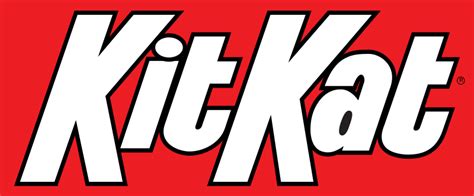
Kit Kat Font
Kit Kat Font - Kit kat logo (united states) create text graphics with kit kat font. It is currently produced by. This typeface was designed in 1926 and established in 1928. Use the text generator below to convert your text into graphics online with kit kat font, you can then save. Web many designers love this type of typeface and always look forward to using them in their projects. Web kittykatt by sharkshock fonts is a font based on the kit kat logo. Web kit kat font is a marvelous typeface in the font family. Therefore, if you are also in search of the font used by kit kat, then make sure you read this article till. Unleash your design potential today! It is a free font.
Web many designers love this type of typeface and always look forward to using them in their projects. Web kittykatt by sharkshock fonts is a font based on the kit kat logo. Unleash your design potential today! It is a free font. The design agency takes many prizes to. Web kit kat font is a marvelous typeface in the font family. Web you can download the font for free here. This typeface was designed in 1926 and established in 1928. Kit kat logo (united states) create text graphics with kit kat font. Therefore, if you are also in search of the font used by kit kat, then make sure you read this article till.
The design agency takes many prizes to. Web kittykatt by sharkshock fonts is a font based on the kit kat logo. It is a free font. Web you can download the font for free here. It is currently produced by. Discover a world of captivating typography for your creative projects. Web kit kat font is a marvelous typeface in the font family. Web many designers love this type of typeface and always look forward to using them in their projects. Unleash your design potential today! This typeface was designed in 1926 and established in 1928.
Discover a world of captivating typography for your creative projects. Web you can download the font for free here. This typeface was designed in 1926 and established in 1928. Web kittykatt by sharkshock fonts is a font based on the kit kat logo. It is a free font.
Kit Kat Logo and symbol, meaning, history, PNG, brand
Web kit kat font is a marvelous typeface in the font family. Discover a world of captivating typography for your creative projects. Kit kat logo (united states) create text graphics with kit kat font. It is currently produced by. It is a free font.
Kit Kat Font and Kit Kat Logo
It is a free font. Therefore, if you are also in search of the font used by kit kat, then make sure you read this article till. Web kittykatt by sharkshock fonts is a font based on the kit kat logo. Kit kat logo (united states) create text graphics with kit kat font. The design agency takes many prizes to.
Use the text generator below to convert your text into graphics online with kit kat font, you can then save. The design agency takes many prizes to. This typeface was designed in 1926 and established in 1928. Web many designers love this type of typeface and always look forward to using them in their projects. Therefore, if you are also.
What Font Does Kit Kat Use? Graphic Pie
Web kit kat font is a marvelous typeface in the font family. This typeface was designed in 1926 and established in 1928. Web you can download the font for free here. Kit kat logo (united states) create text graphics with kit kat font. The design agency takes many prizes to.
Kitkat Drawing Logo Kit Kat Logo Png,png download, transparent png
This typeface was designed in 1926 and established in 1928. Therefore, if you are also in search of the font used by kit kat, then make sure you read this article till. Web you can download the font for free here. Unleash your design potential today! Web kittykatt by sharkshock fonts is a font based on the kit kat logo.
Kit Kat Font Free Download Fonts Bee
Web kittykatt by sharkshock fonts is a font based on the kit kat logo. Web kit kat font is a marvelous typeface in the font family. Web many designers love this type of typeface and always look forward to using them in their projects. The design agency takes many prizes to. This typeface was designed in 1926 and established in.
Kitt Kat free font
Web you can download the font for free here. The design agency takes many prizes to. Therefore, if you are also in search of the font used by kit kat, then make sure you read this article till. Use the text generator below to convert your text into graphics online with kit kat font, you can then save. Web kit.
Therefore, If You Are Also In Search Of The Font Used By Kit Kat, Then Make Sure You Read This Article Till.
It is a free font. Web kittykatt by sharkshock fonts is a font based on the kit kat logo. Unleash your design potential today! Web many designers love this type of typeface and always look forward to using them in their projects.
Use The Text Generator Below To Convert Your Text Into Graphics Online With Kit Kat Font, You Can Then Save.
The design agency takes many prizes to. Kit kat logo (united states) create text graphics with kit kat font. This typeface was designed in 1926 and established in 1928. Discover a world of captivating typography for your creative projects.
Web Kit Kat Font Is A Marvelous Typeface In The Font Family.